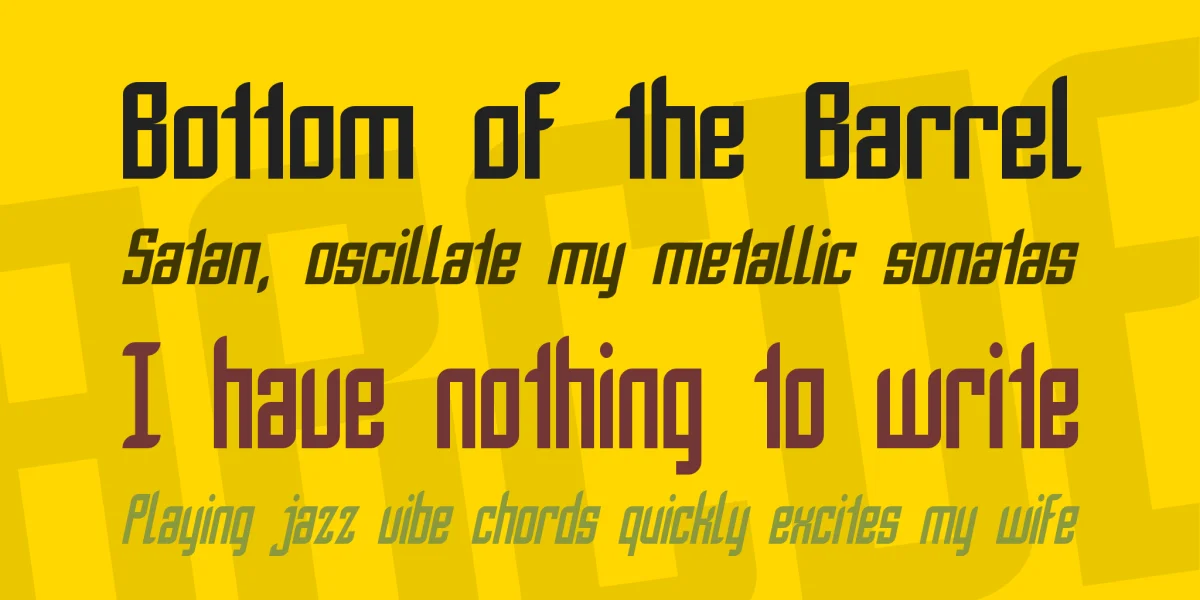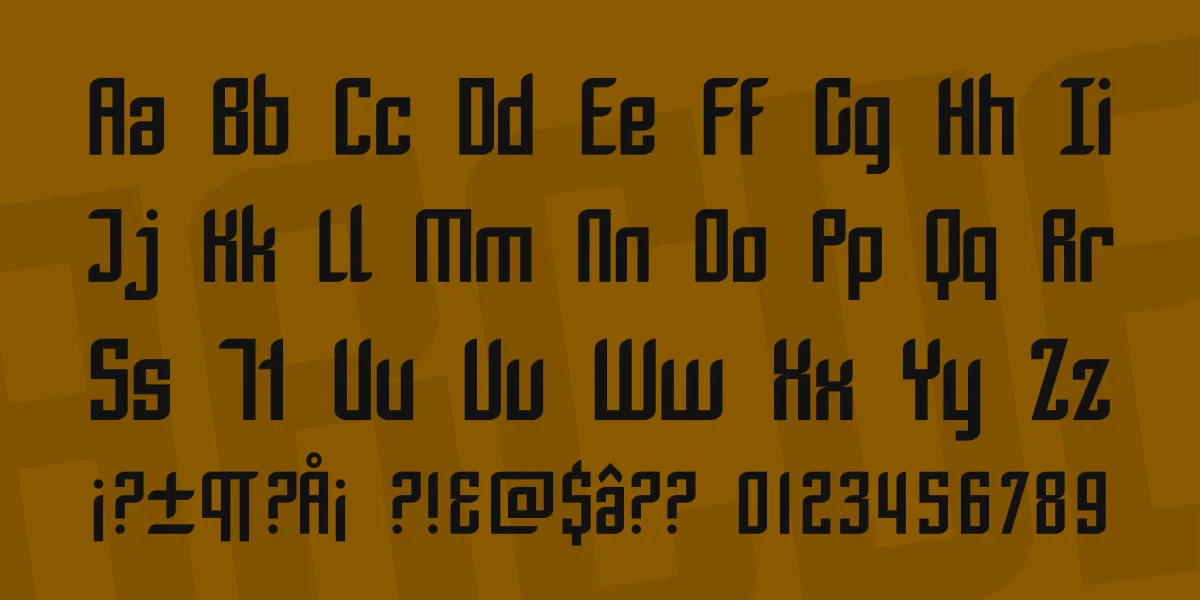
SF Piezolectric was named by Deb Dunbar.
Piezoelectricity is the generation of electricity in dielectric crystals subjected to mechanical stress, but SF Piezolectric is a techno typeface that generates pure enjoyment when used. SF Piezolectric contains lowercase and uppercase letters, numbers, punctuation, and accented characters.